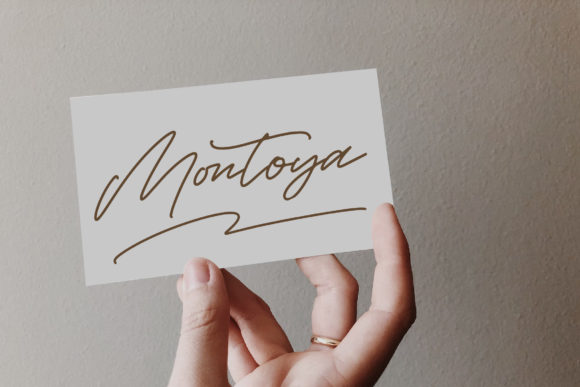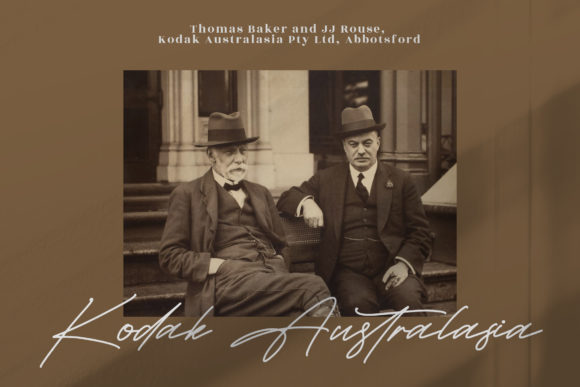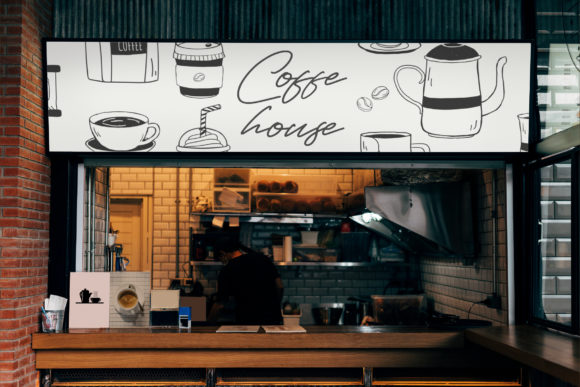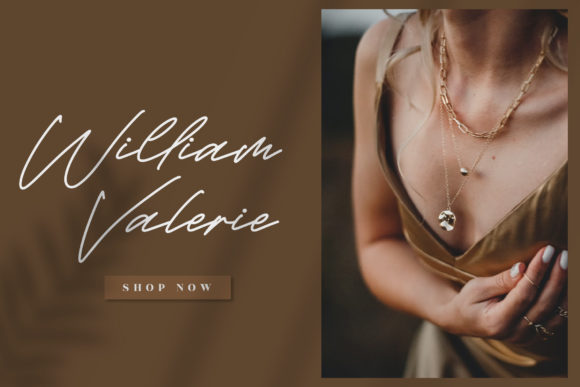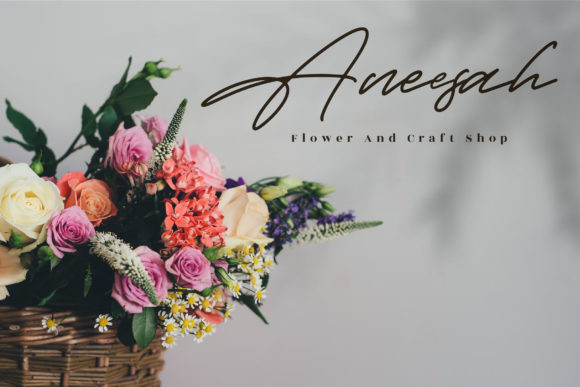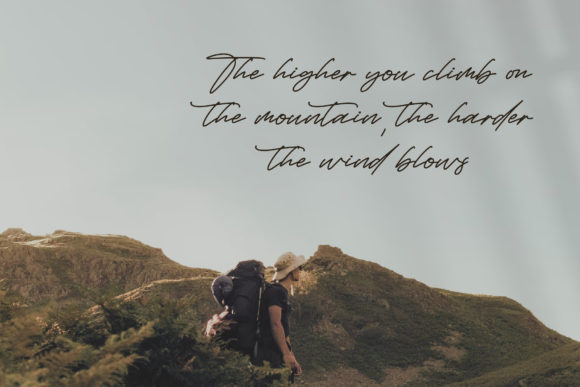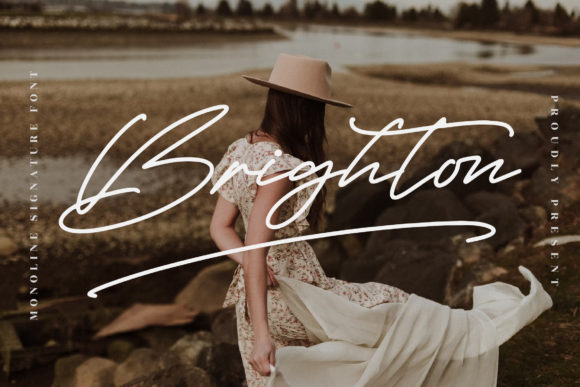
Introducing Brighton Font: Elevate Your Designs with Elegance
Are you on the hunt for a font that exudes style, sophistication, and a touch of whimsy? Look no further than Brighton Font, a beautifully crafted handwritten font that’s perfect for a variety of design projects. In this article, we’ll dive into the world of Brighton Font, exploring its unique features, uses, and benefits for designers and crafters alike.
A Stylish and Uniquely Designed Handwritten Font
Brighton Font is a stunning example of a handwritten font that’s both elegant and eye-catching. Its unique design makes it stand out from more traditional fonts, adding a touch of personality to any project. Whether you’re working on a wedding invitation, a thank you card, or a business logo, Brighton Font is sure to impress.
One of the best things about Brighton Font is its versatility. It’s perfect for a wide range of design projects, including:
- Wedding invitations: Add a touch of romance and elegance to your wedding stationery with Brighton Font.
- Thank you cards: Show your appreciation in style with beautifully designed thank you cards featuring Brighton Font.
- Quotes: Make your quotes stand out with a font that’s both stylish and easy to read.
- Greeting cards: From birthdays to holidays, Brighton Font is perfect for creating unique and personalized greeting cards.
- Logos: Add a touch of sophistication to your business logo with Brighton Font.
- Business cards: Stand out from the crowd with beautifully designed business cards featuring Brighton Font.
Brighton Font offers a range of benefits for designers and crafters, including:
- Flexibility: Brighton Font can be used in a wide range of design projects, from digital designs to print materials.
- Unique designs: With its unique and stylish design, Brighton Font is sure to make your designs stand out from the crowd.
- Time-saving: With Brighton Font, you can create beautiful designs in no time, saving you time and effort.
- Stylish and uniquely designed handwritten font
- Perfect for wedding invitations, thank you cards, quotes, greeting cards, logos, business cards, and more
- Ease of use, flexibility, and unique designs
- Perfect for designers and crafters of all levels